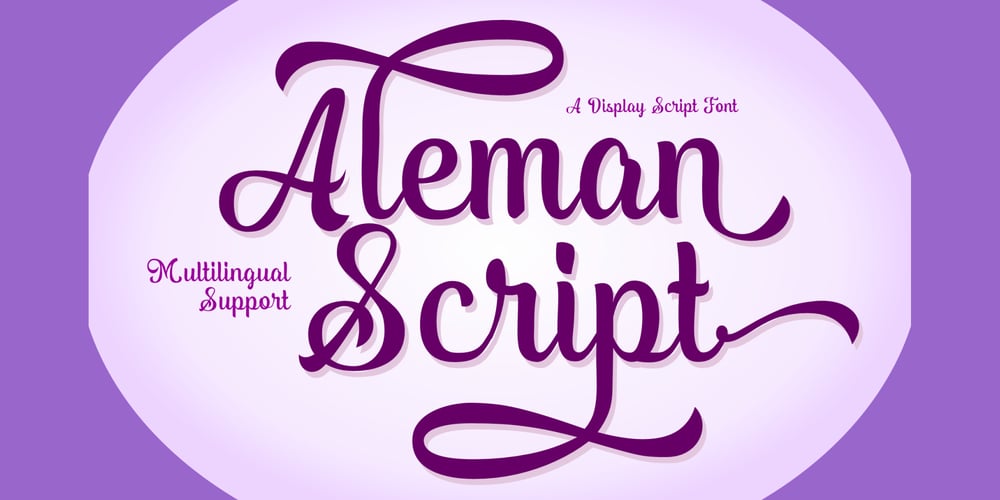
Aleman Script Font Family was designed by Muhammad Jauhar Azmi and published by Brainware Graphic. Aleman Script contains 1 styles and family package options. Aleman script is a modern vintage display script font, a beautiful script with opentype feature such a lot of swashes.this font has a modern vintage feel and will bring any design project like identity and branding to the old nuance.